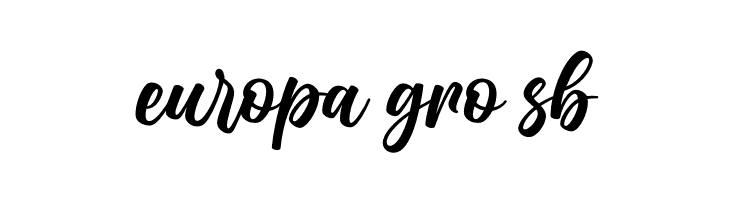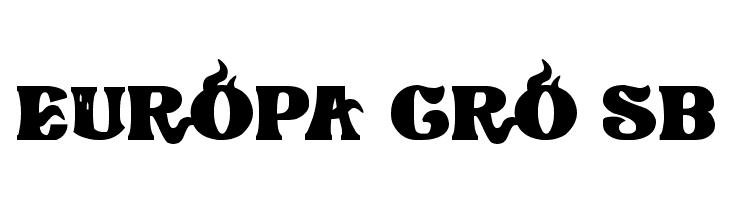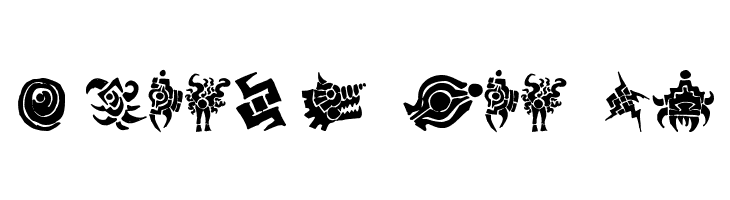
Lovecraft-s-Diary Font
A decorative, cryptic font inspired by ancient or otherworldly scripts.
Oldstyle Italic HPLHS Font
Font by HPLHS Prop Fonts - Andrew H. Leman http://www.cthulhulives.org/toybox/propdocs/propfonts.html
An elegant, classic italic font with a traditional and sophisticated style.
Lovecraftimus Font
A bold, futuristic font with geometric elements and sharp angles.
lovecraft Font
A bold, elegant script font with flowing, interconnected characters.
Lovecraftian Horrors Italic Font
Font by Joseph Dawson
A bold, italicized font with a mysterious, Lovecraftian horror aesthetic.
Lovecraftian Horrors Font
Font by Joseph Dawson
A bold, horror-themed font with sharp serifs and dramatic embellishments.